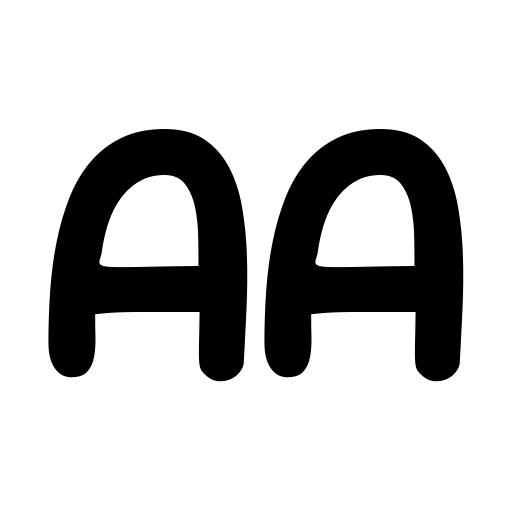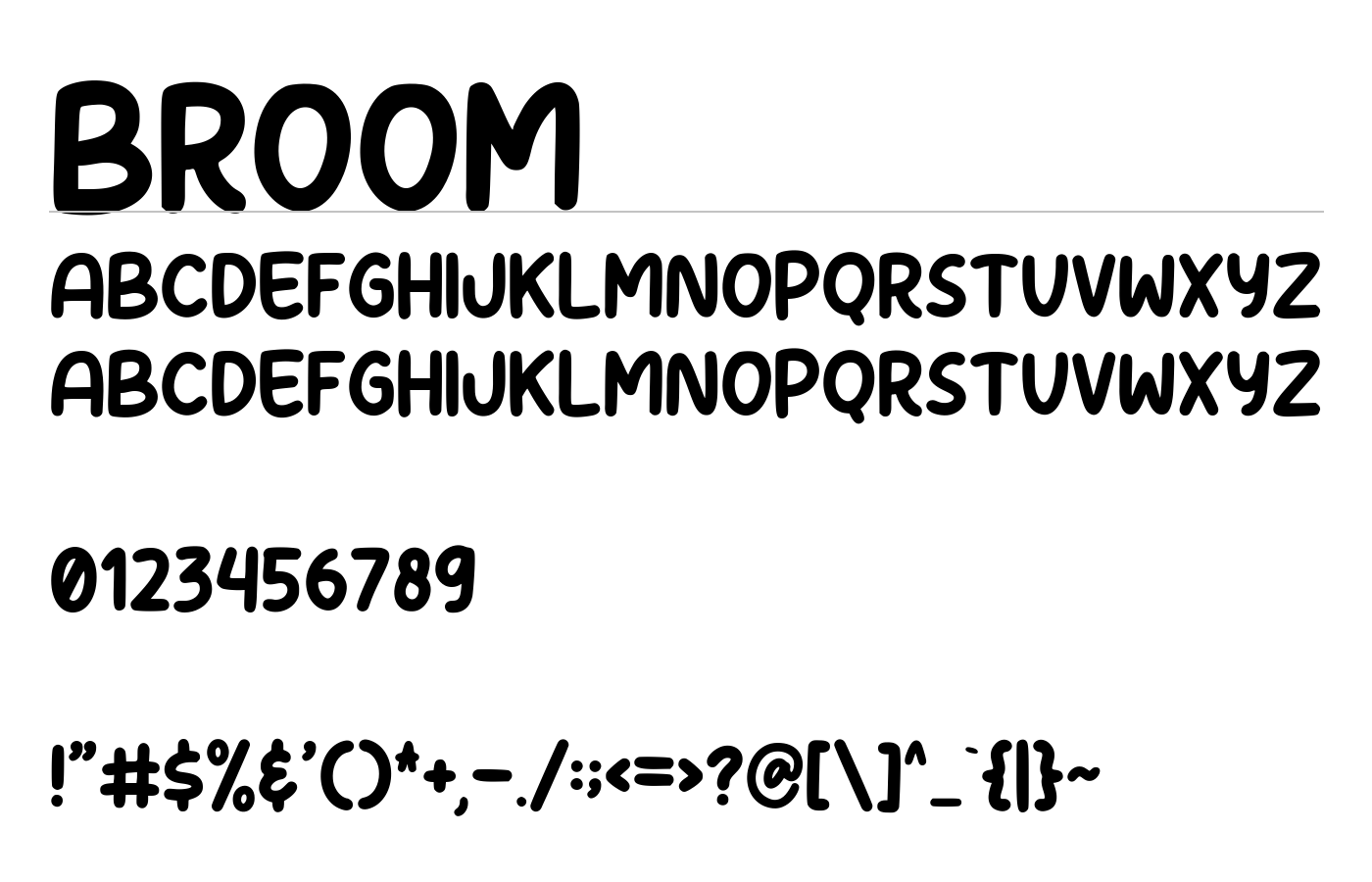
Broom Font is a bold, rounded sans-serif typeface with a playful and friendly character, featuring smooth, slightly irregular strokes that mimic casual handwriting. Its lively and approachable style works well for informal branding, children's materials, and creative projects where a warm, inviting tone is desired. This font’s clear letterforms and consistent weight make it suitable for headlines, logos, and packaging that seek a fun and energetic vibe.
Broom Font
About Broom Font